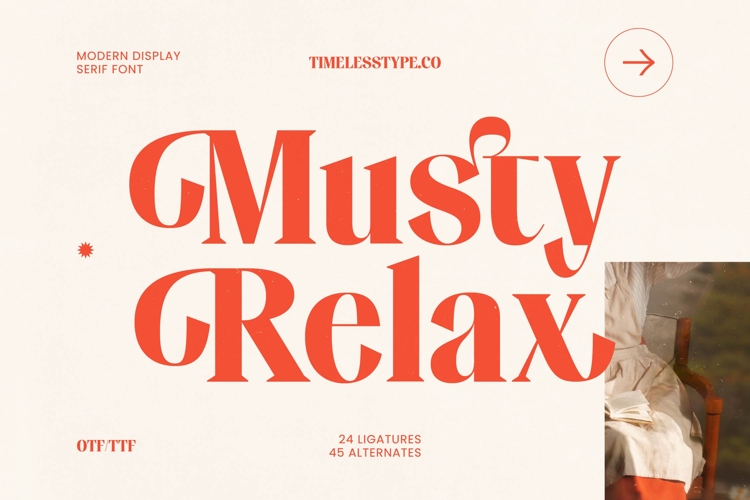
Musty Relax - Modern Display Serif Font
Elevate your creative projects with the sophisticated charm of Musty Relax - Modern Display Serif Font, a typeface designed to bridge the gap between vintage elegance and modern minimalism. This high-contrast serif commands attention through its bold presence and delicate, refined curves, making it an essential tool for designers seeking a luxurious visual identity. With its unique blend of organic shapes and structured stems, Musty Relax - Modern Display Serif Font ensures your headers and titles resonate with a sense of refined style and professional polish.
Unlocking endless possibilities for high-end branding, Musty Relax - Modern Display Serif Font is the perfect choice for projects that demand a premium aesthetic. It is perfect for luxury branding, editorial layouts, fashion magazine spreads, and upscale product packaging where elegance is paramount. Whether you are crafting a bespoke logo or a sophisticated advertising campaign, this font provides the visual weight and artistic flair necessary to captivate a discerning audience and establish a strong brand presence.
Technical excellence meets artistic versatility with an expansive set of 24 ligatures and 45 alternates that allow for custom typographic compositions. With its extensive multilingual support, Musty Relax - Modern Display Serif Font adapts seamlessly across global markets, making it incredibly versatile for international projects and diverse linguistic requirements. This adaptability ensures that your message remains clear and visually striking regardless of the geographic location or target demographic, solidifying its place as a global design asset.
Secure a competitive edge in today’s saturated market by integrating Musty Relax - Modern Display Serif Font into your design toolkit. This font is more than just a set of characters; it is a comprehensive design solution that empowers creators to produce visually stunning layouts with ease. By choosing Musty Relax - Modern Display Serif Font, you are investing in top-tier typography that enhances brand storytelling and delivers a memorable user experience across both digital and print mediums.